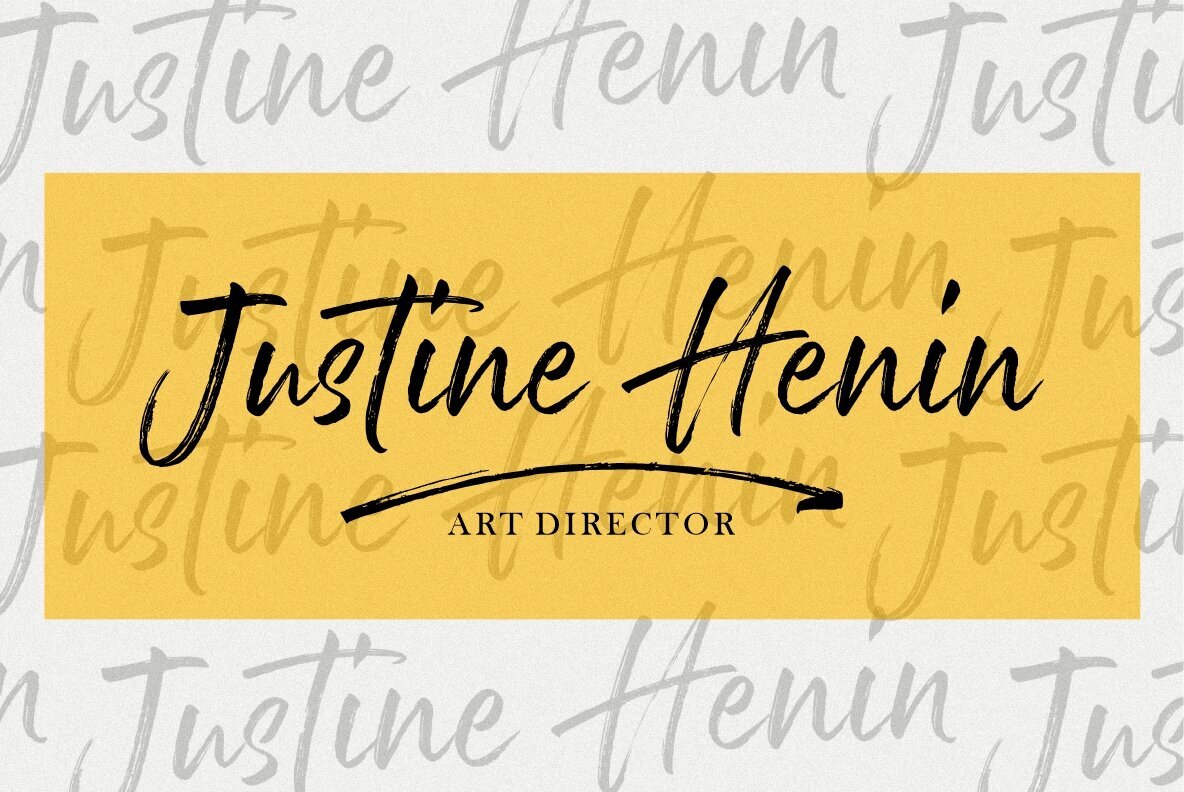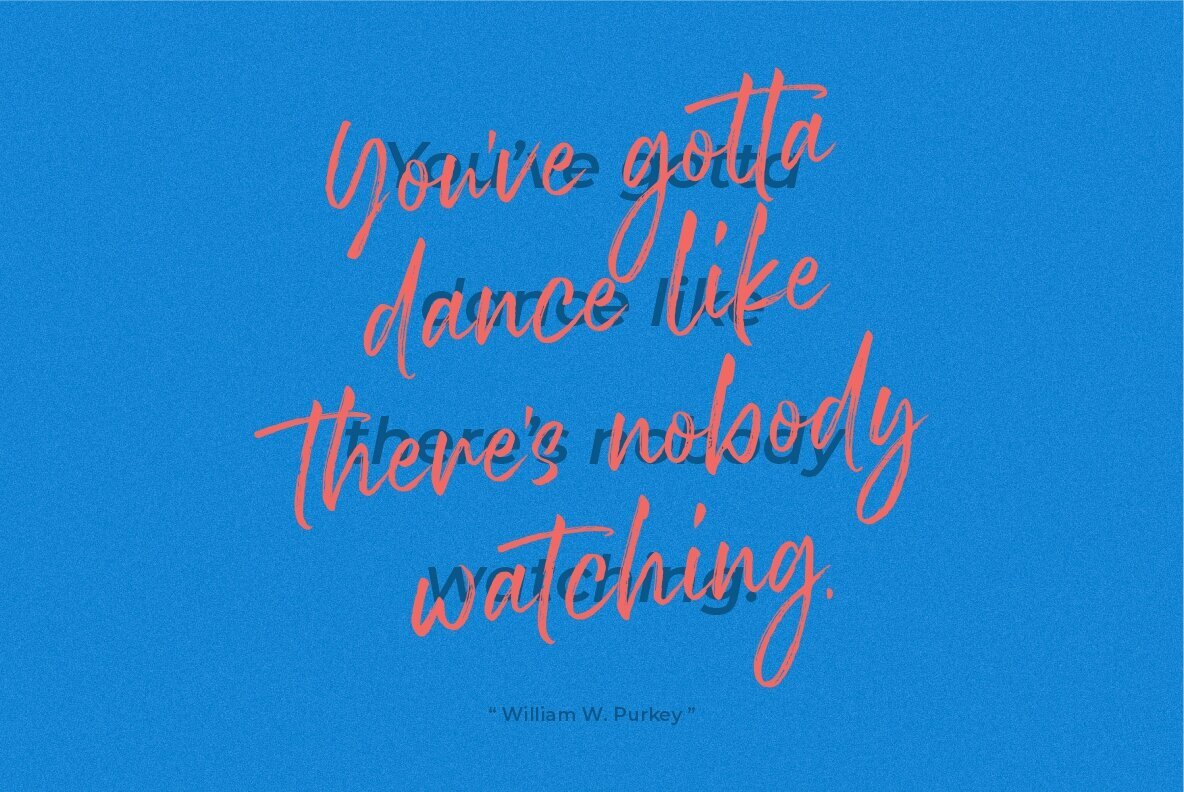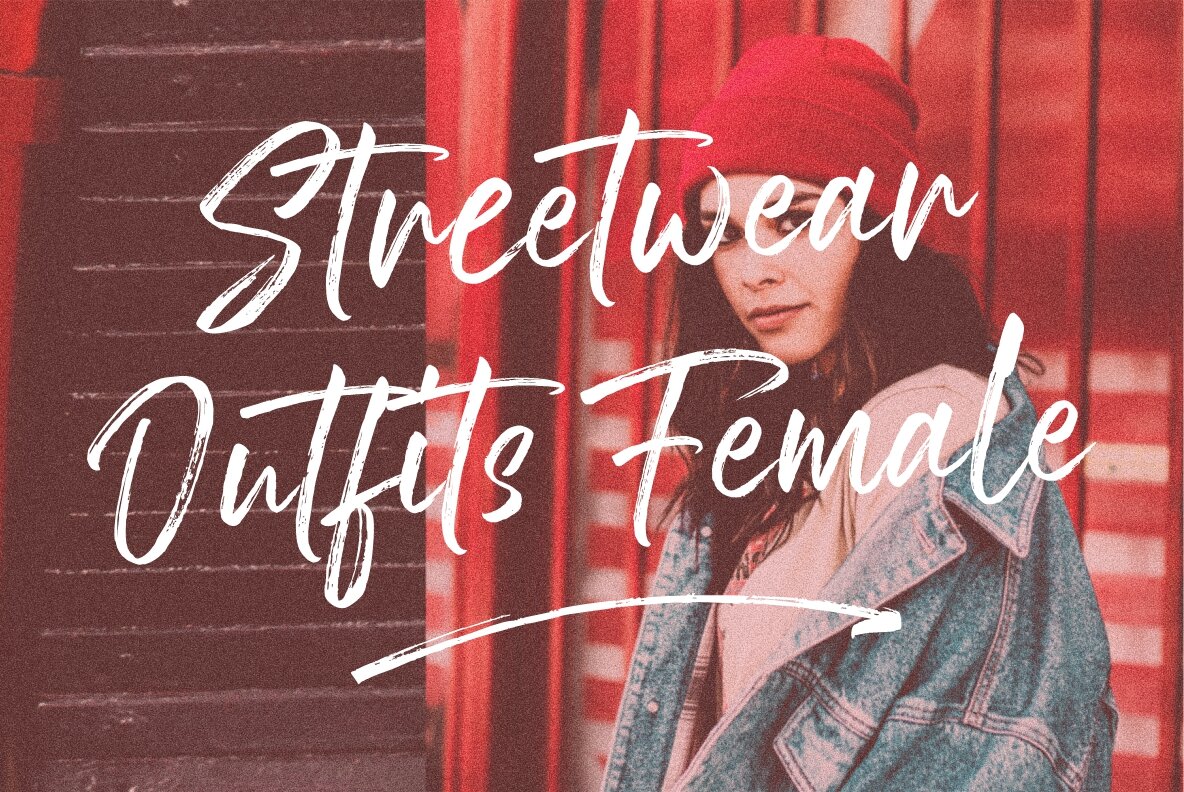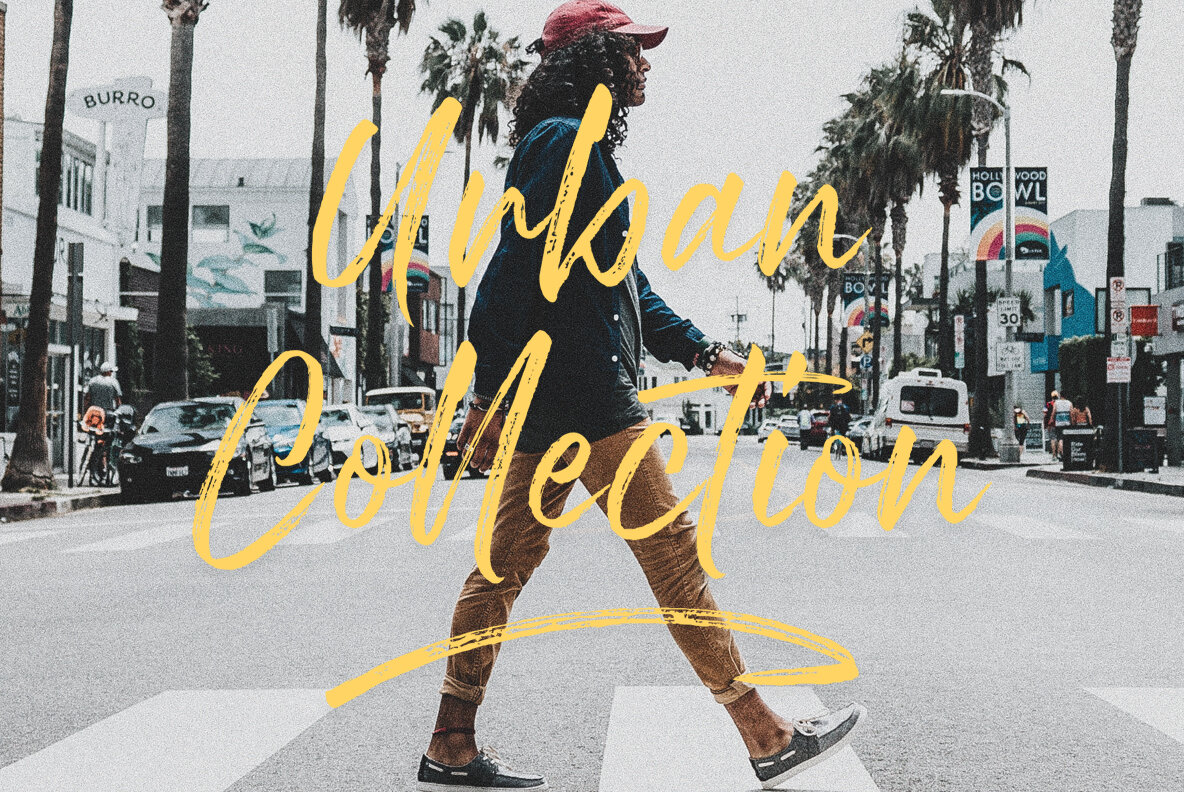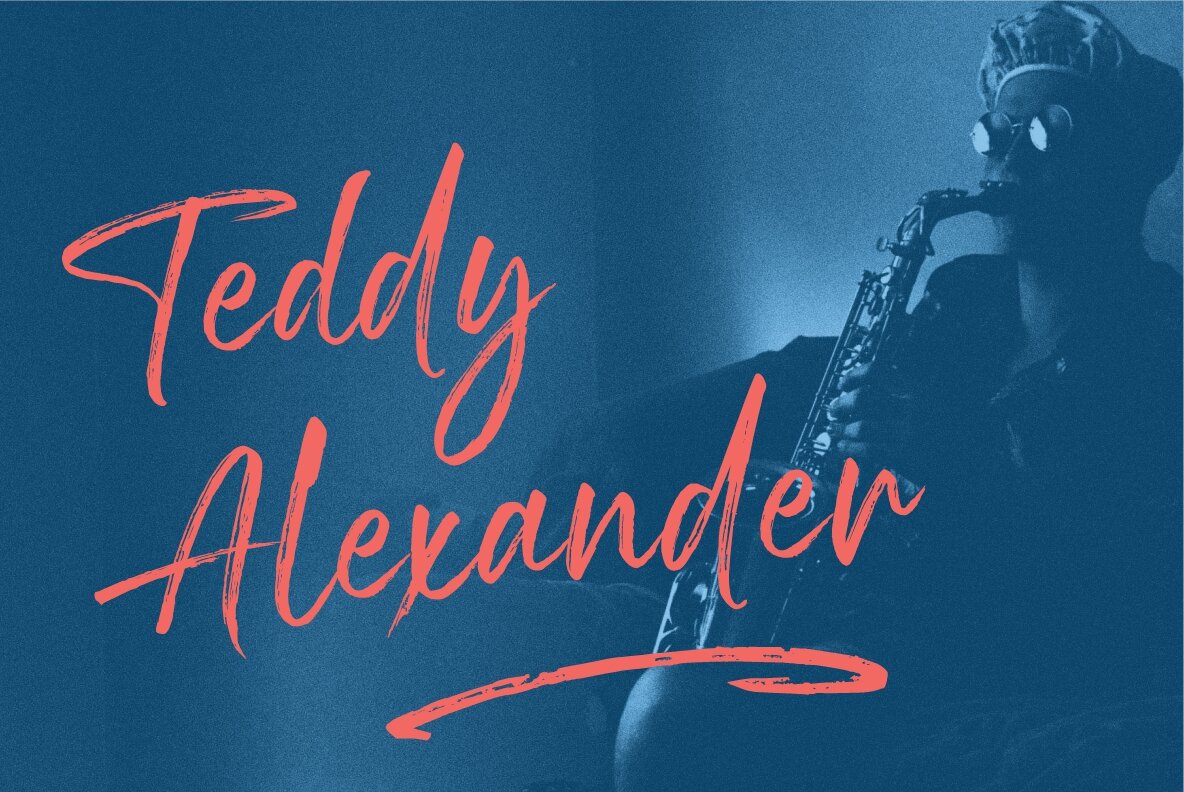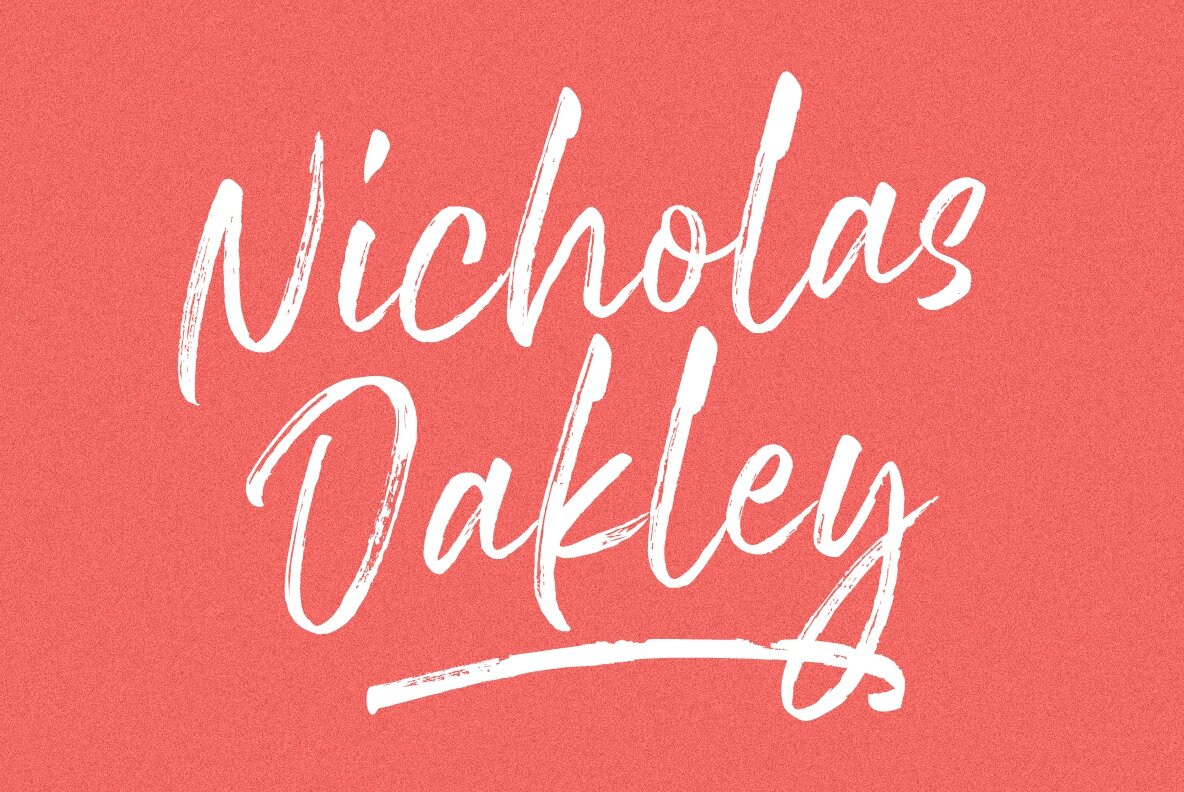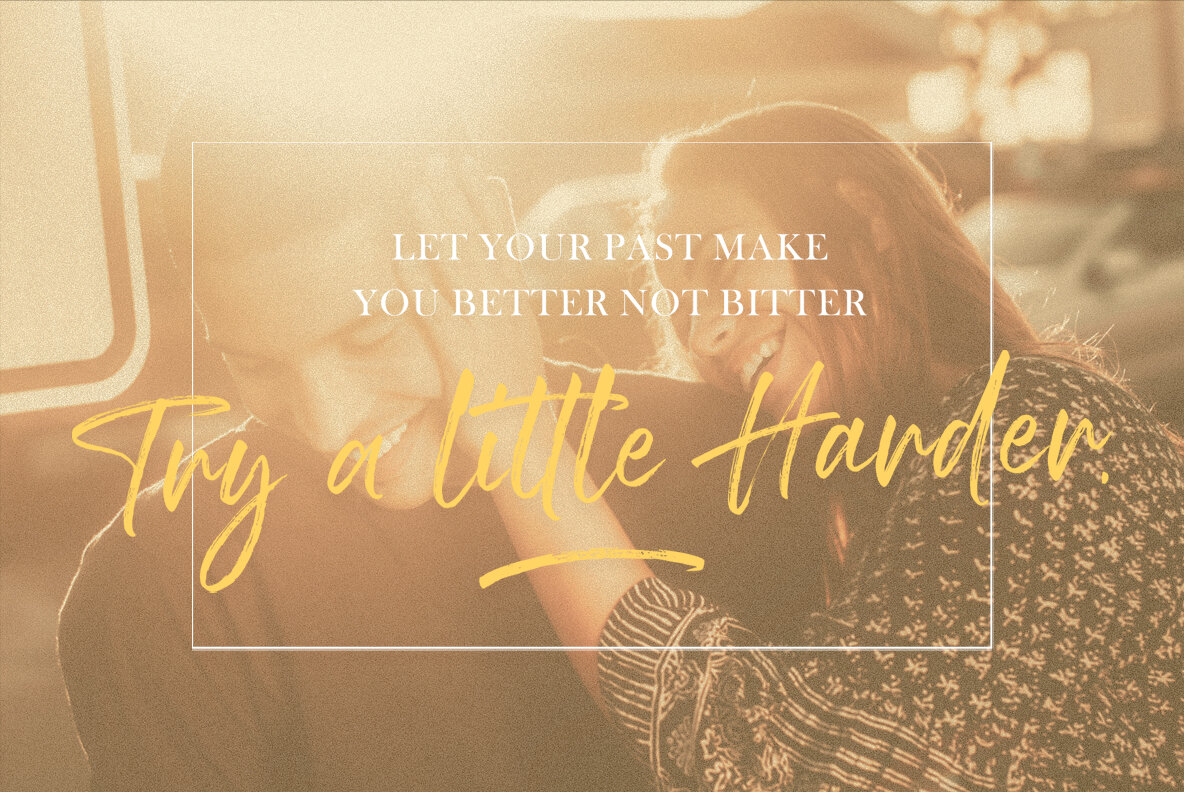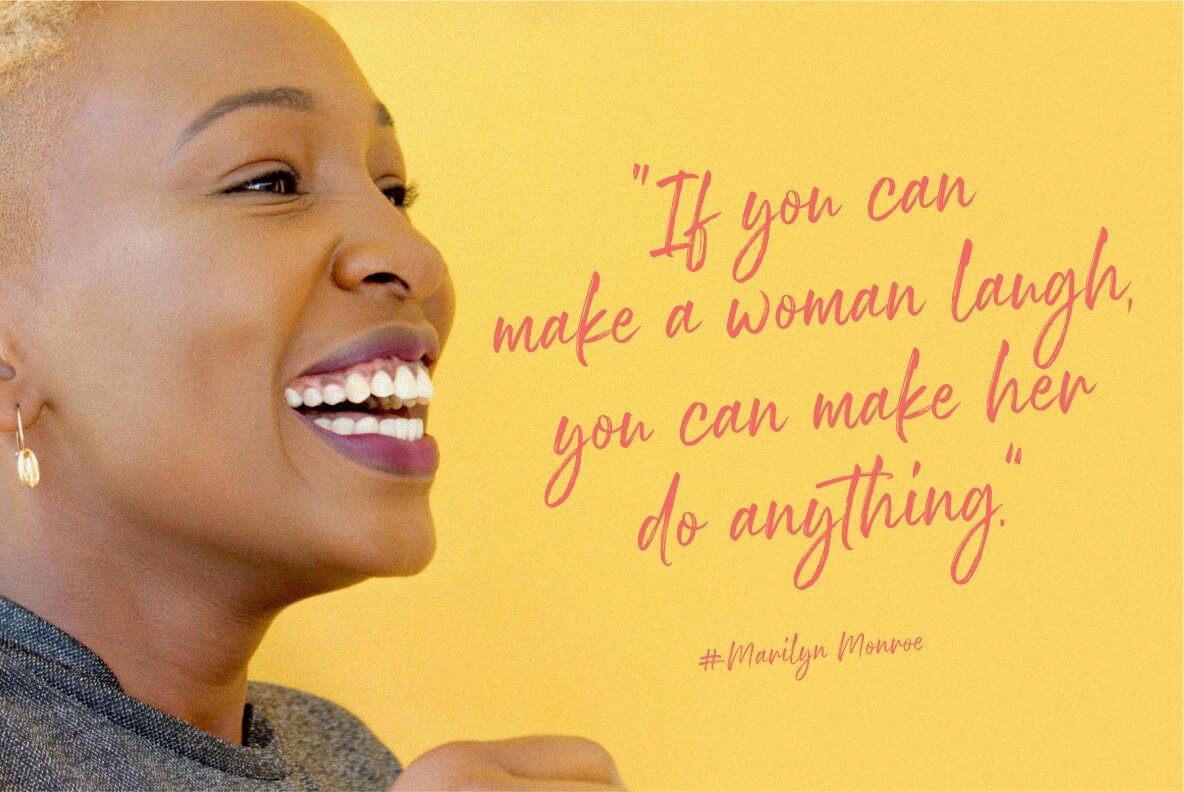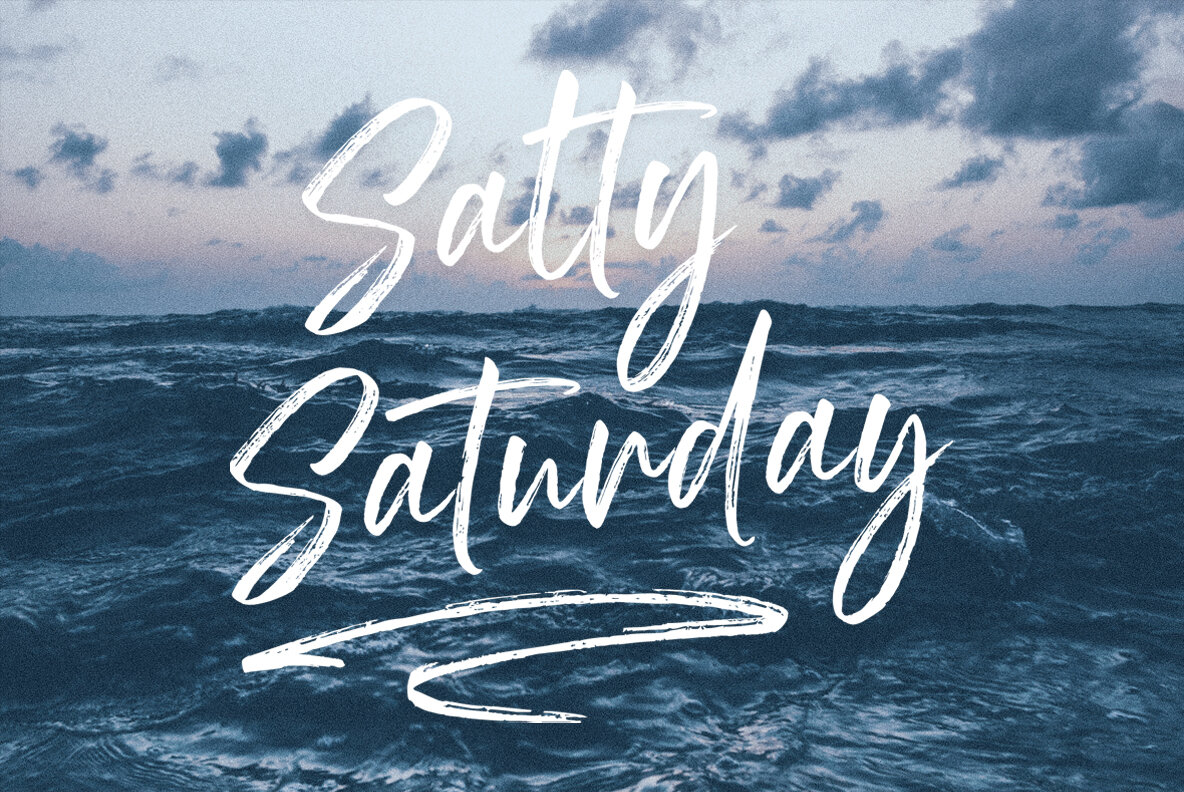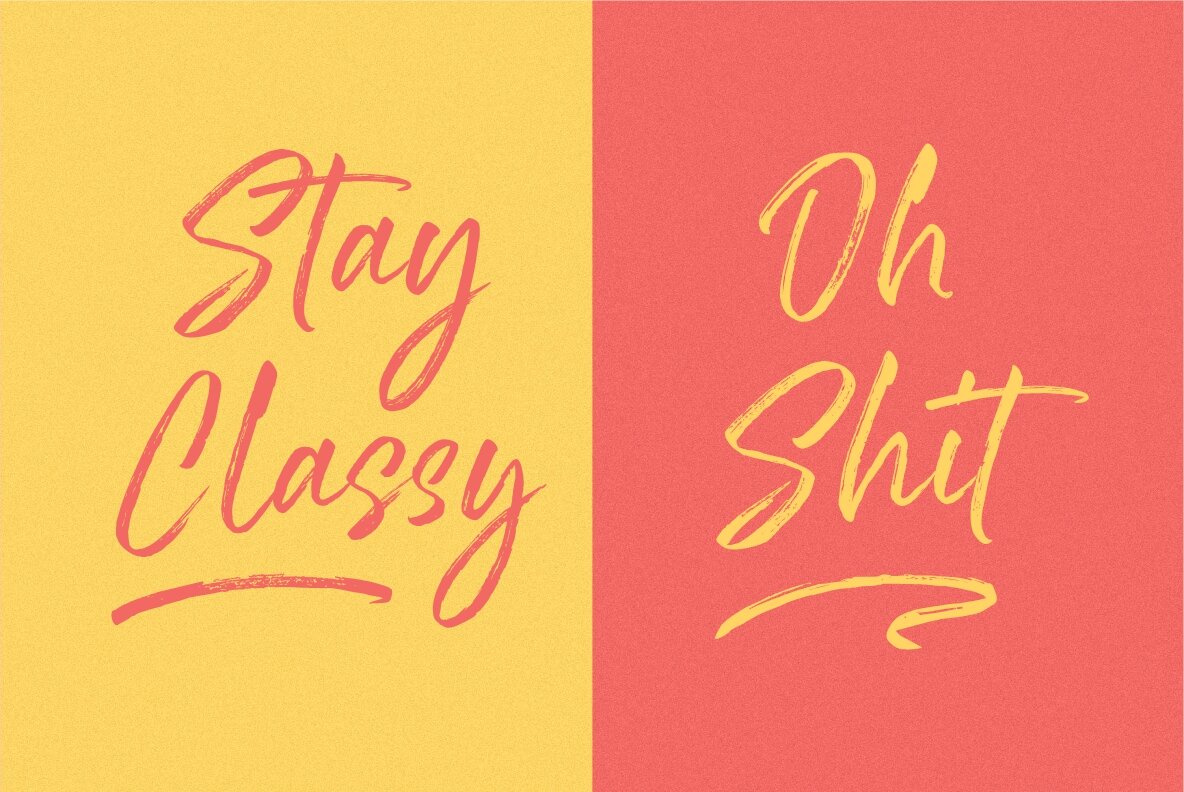
Royalty Font
Royalty
Royalty Handbrush Font is the perfect choice to make your designs feel natural, elegant and unique. With its free-flowing curves created with minimal effort, this font provides a stylish look of traditional brush lettering while still managing to stand out from other “normal” script fonts due to thoughtful details included in its design. Complete any creative project easily by using Royalty as an element that will take it up another level!